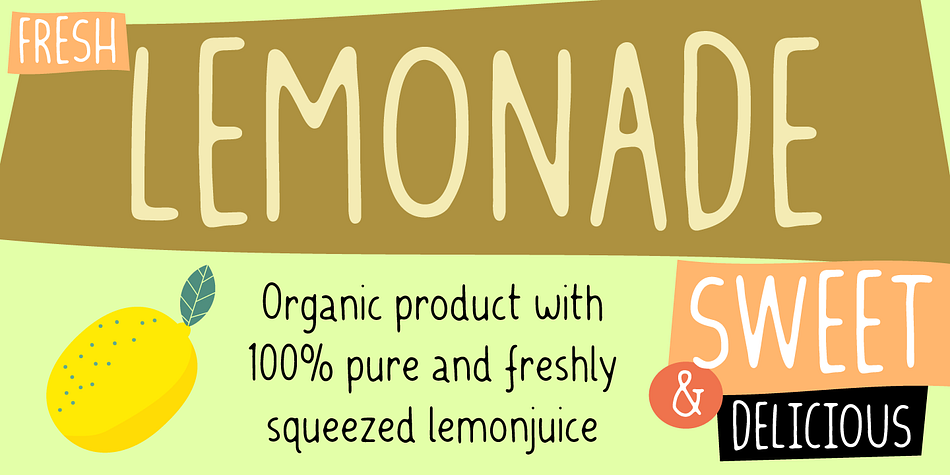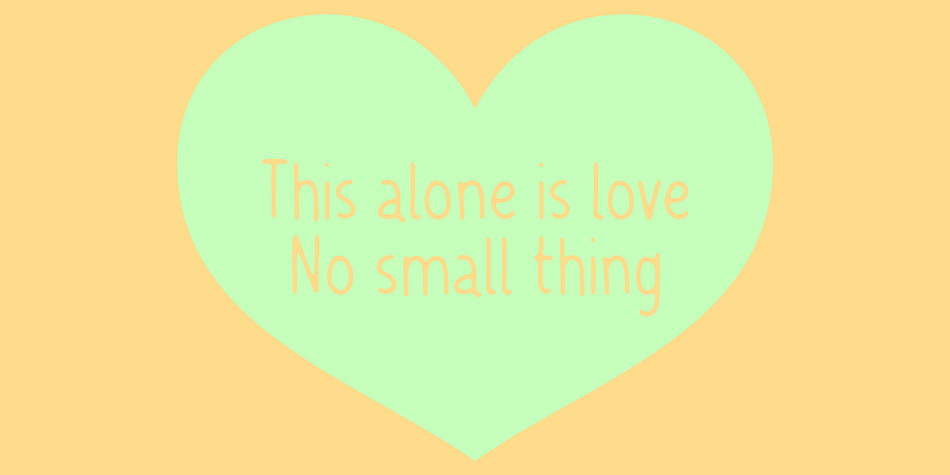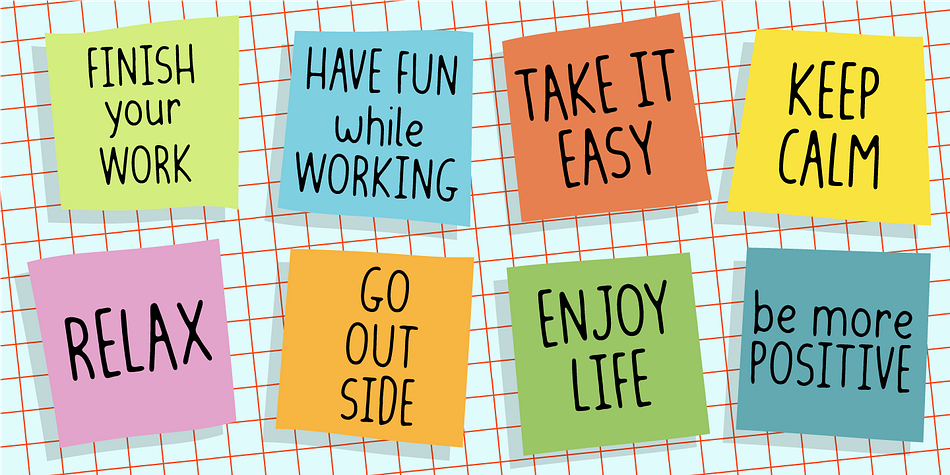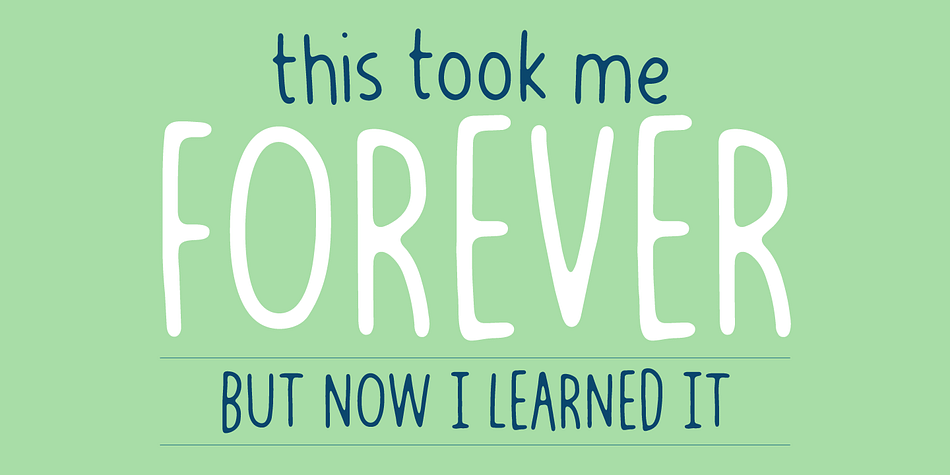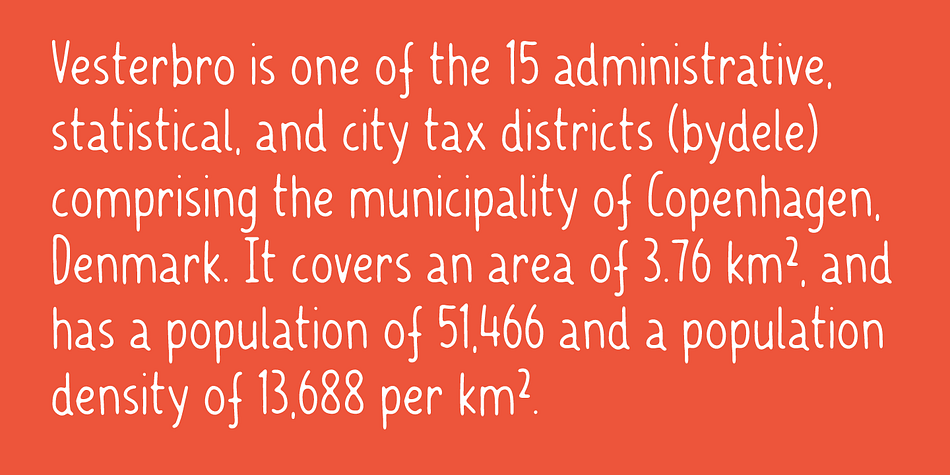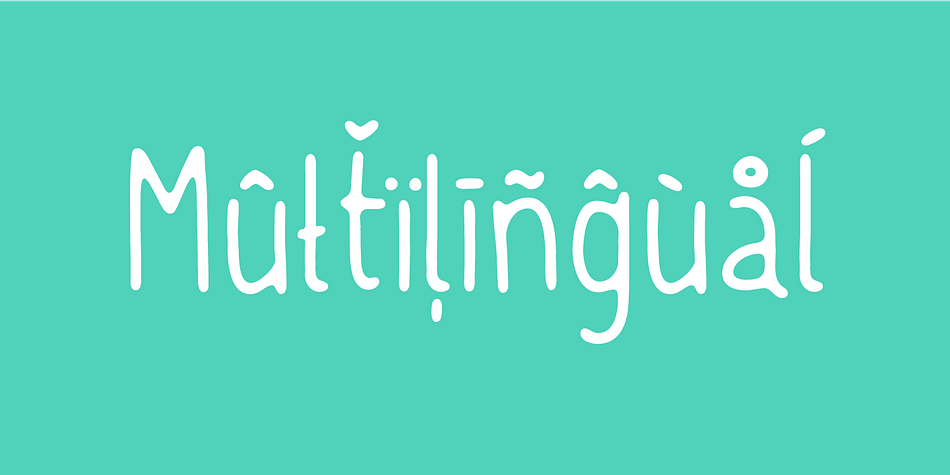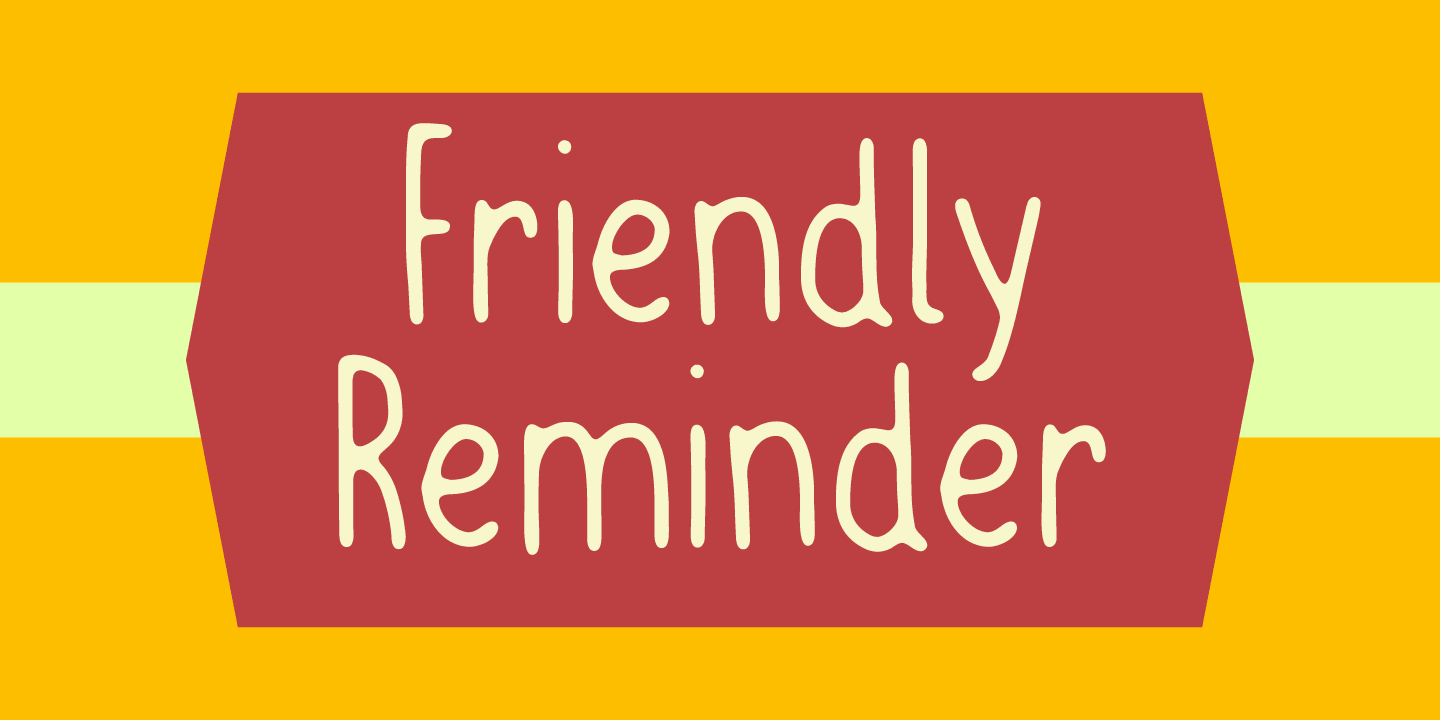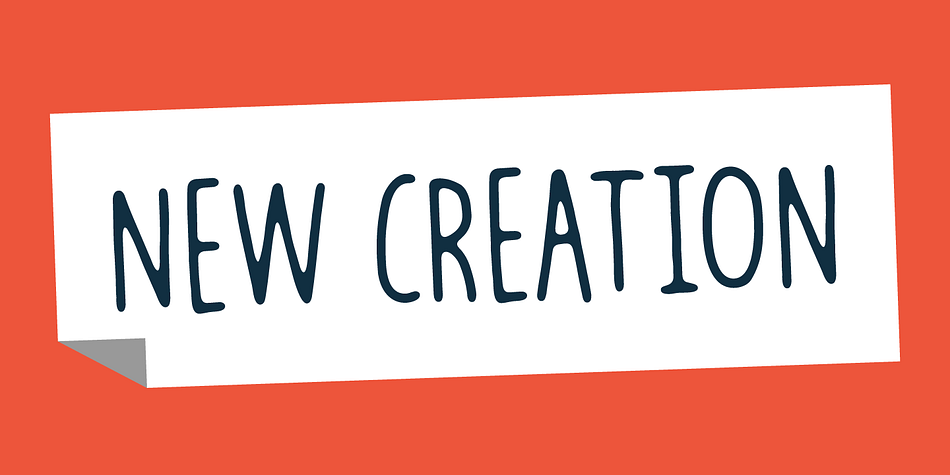
Designed by Jakob Fischer, Friendly Reminder is a hand drawn and kids font family. This typeface has two styles and was published by Pizzadude.dk.
It’s always nice to have someone to remind you of important things - especially when the reminder is friendly! :)